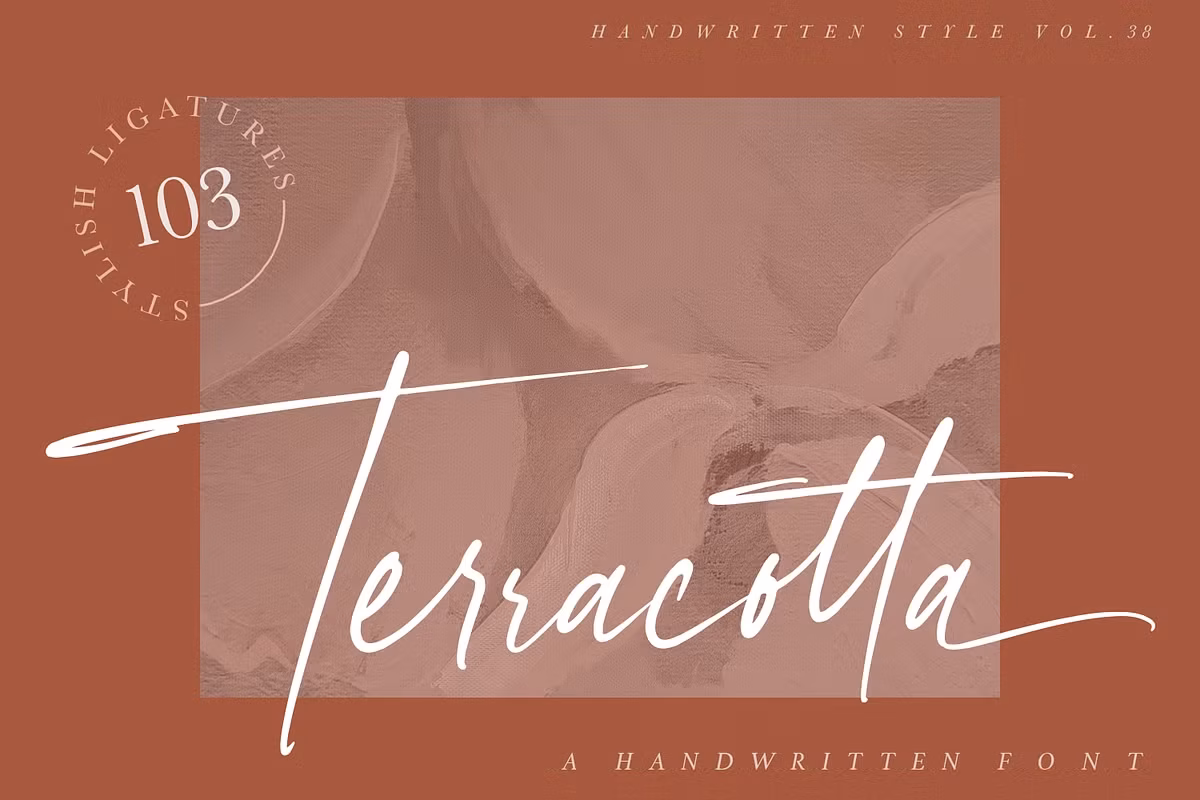
Add a personal and creative touch to your designs with Teracotta - Handwritten Font Free Download. This charming handwritten font features natural, organic strokes, making it perfect for projects that require a warm, approachable, and unique feel. Ideal for invitations, branding, social media posts, packaging, and more.
Teracotta offers fluid letterforms with a casual yet refined style, providing a perfect balance between elegance and informality. It includes uppercase and lowercase letters, numerals, punctuation, and ligatures, offering flexibility for various design layouts.